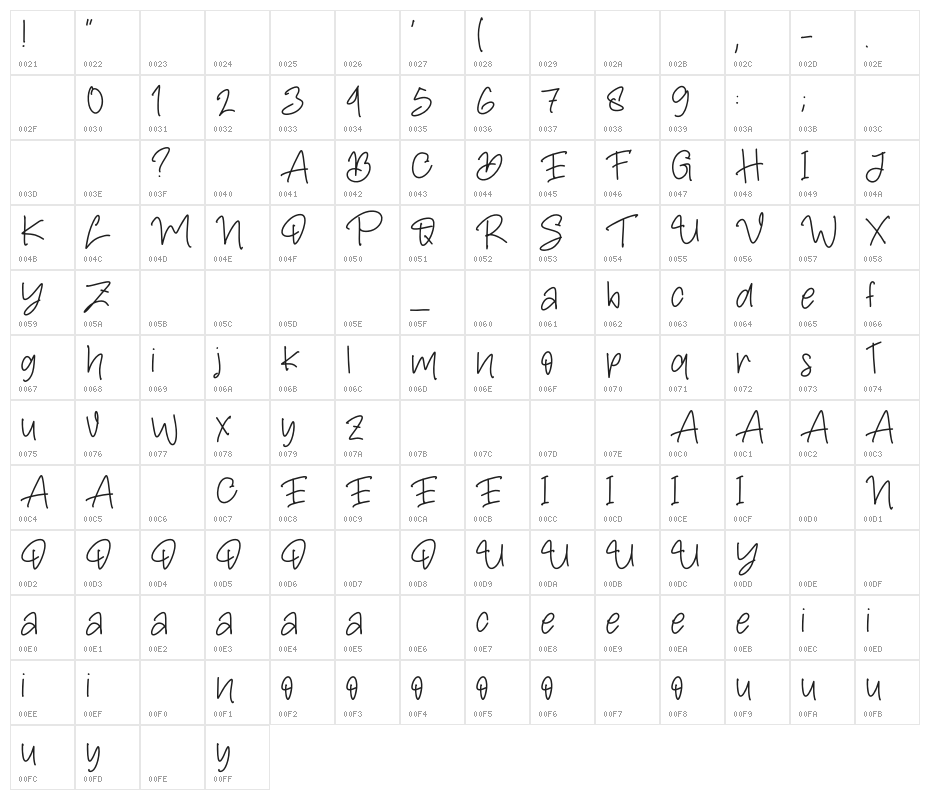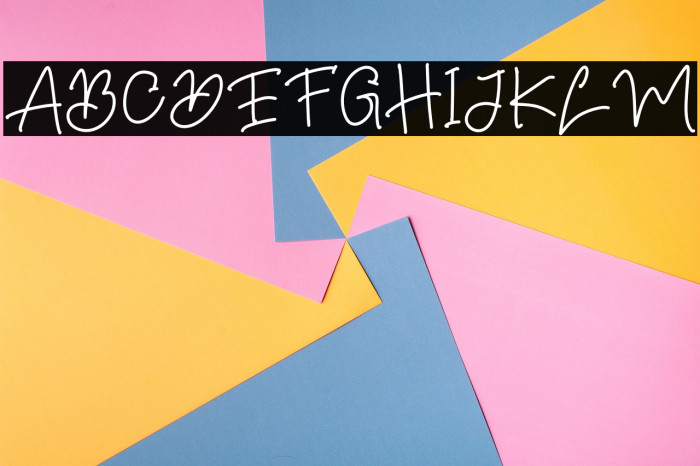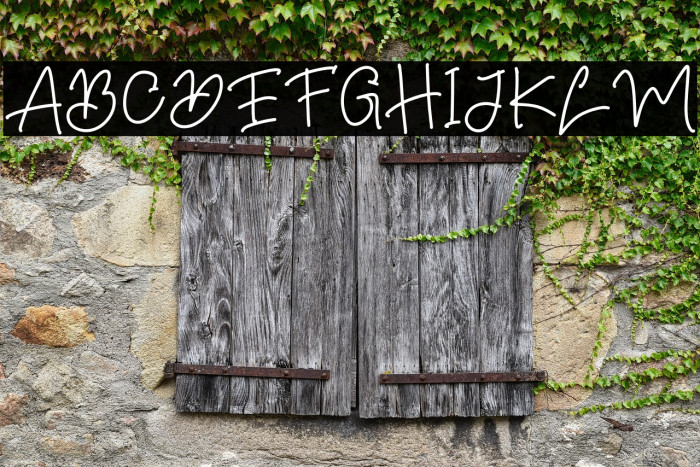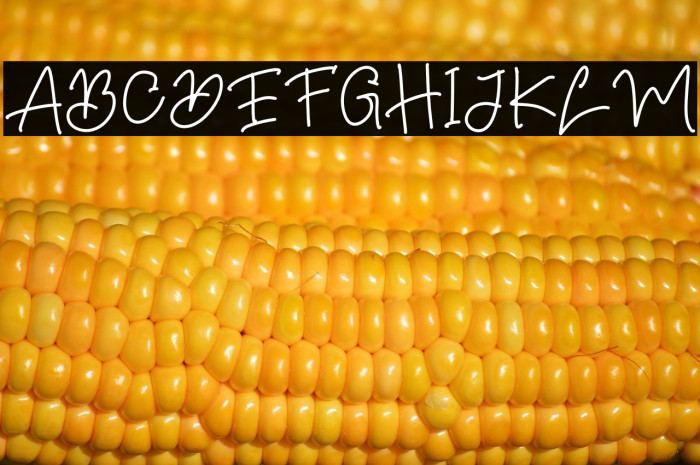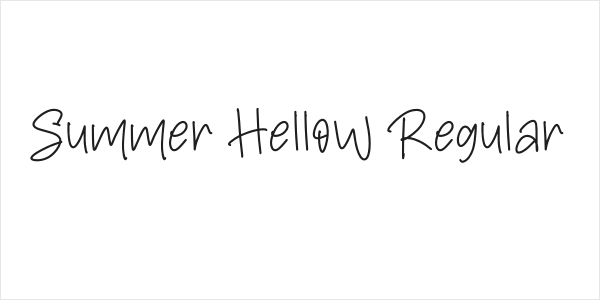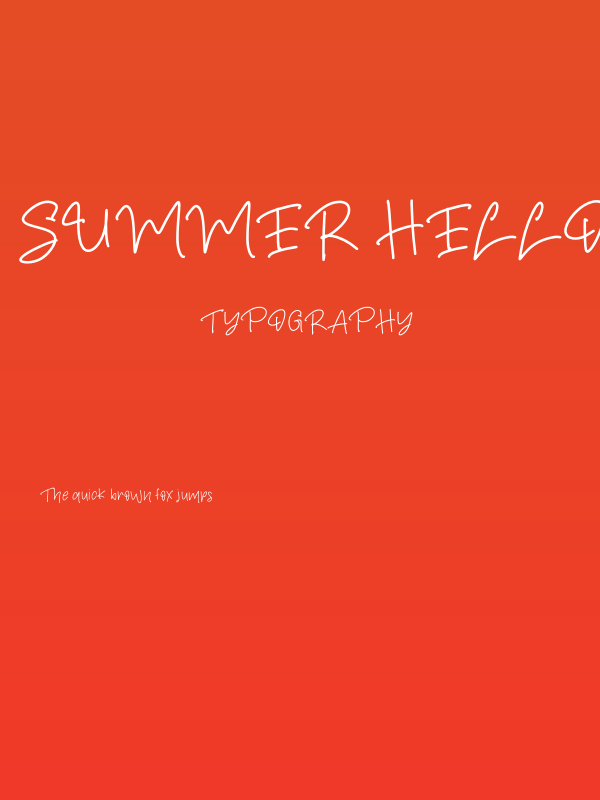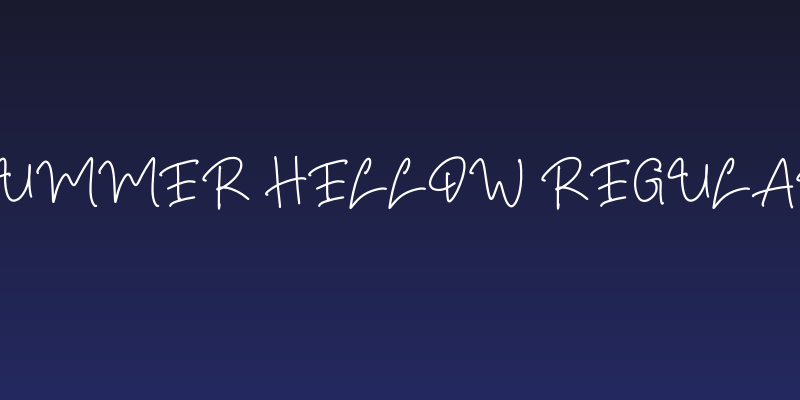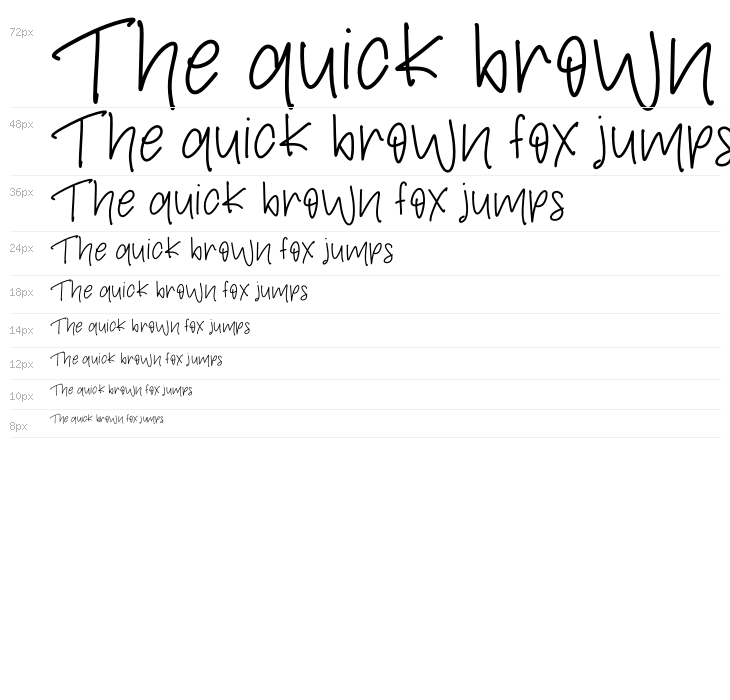
Summer Hellow Regular Font
Summer Hellow Regular Description
A playful, handwritten font with a casual and friendly appearance. The letters are slightly slanted and have a consistent stroke width, giving it a relaxed and informal feel.
| Use Case | Headlines, Informal text, Personal projects |
| Proposed Projects | Greeting cards, invitations, casual branding. |